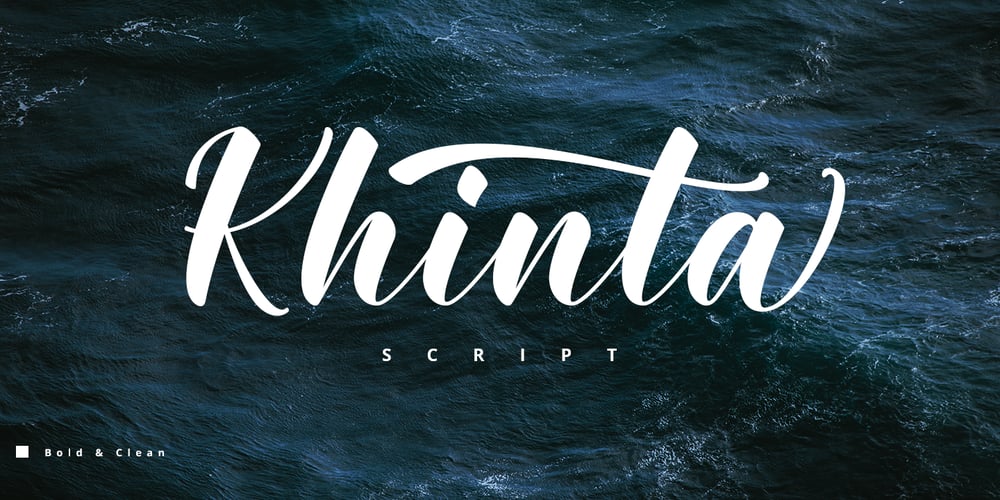
Khinta
Khinta font
Khinta Font Family was designed by Juni Fadil Putra and published by FadeLine Studio. Khinta contains 1 styles and family package options. Khinta comes in a bold and clean style, this font is firm, luxurious and simple.With a style like this, this font will be very suitable to use for logo’s, branding projects, homeware designs, product packaging, mugs, quotes, posters, shopping bags, logo’s, t-shirts, book covers, name cards, invitation cards, greeting cards, and all your other lovely projects.